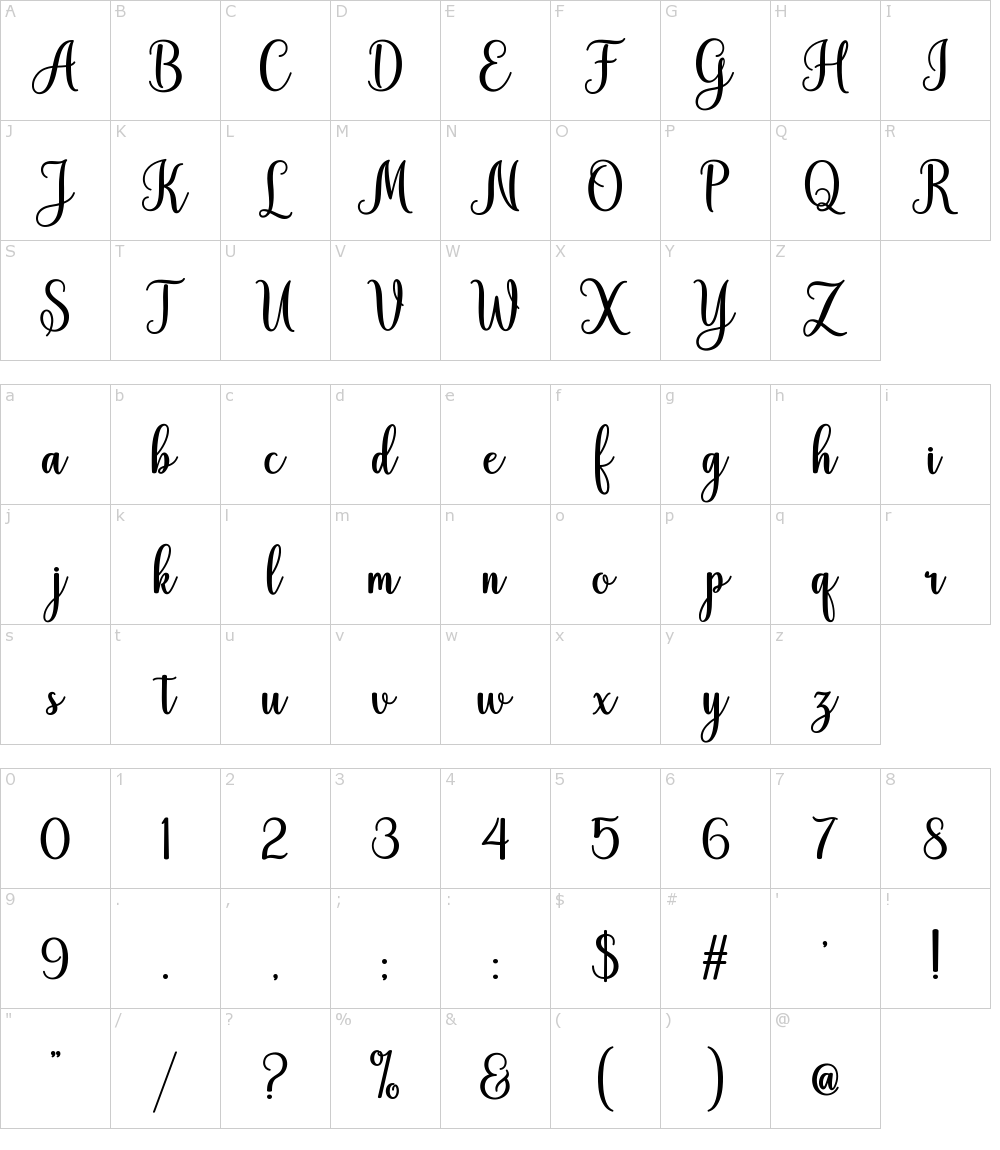
Hiyida script demo file format: Hiyida script is modern script font where every single letter has been carefully crafted to make your text look beautiful. Microsoft word, corel draw, adobe photoshop. This is a beautiful script with a new lovely stylish, a perfection style of the letters you want to use, modern handwriting with many alternatives. With modern script style this font will perfect for many different project, example: Download hiyida script demotruetype font. Weddings, invitations, greeting cards, posters, name card, quotes, blog header, branding, logo. Connect with them on dribbble; Hiyida script font is modern script font, every single letters has been carefully crafted to make your text looks beautiful. Copyright (c) 2016 by creative.lafont. But any donation are very appreciated. With modern script style this font will perfect for many different project, example: Dear visitor, you went to the site as unregistered user.
Date of font being added: Hiyida script demo file format: Hiyida script is modern script font, every single letters has been carefully crafted to make your text looks beautiful.
With modern script style this font will perfect for many different project, example: This is a beautiful script with a new lovely stylish, a perfection style of the letters introducing hiyida, font created by creative.lafont. Fontbundles.net 407 views, 14 downloads share share share. Please, talk with the author for commercial use or for any support. But any donation are very appreciated. This is a beautiful script with a new lovely stylish, a perfection style of the letters you want to use, modern handwriting. Windows, mac, linux for programs: Hiyida script is a script type font that can be used on any device such as pc, mac, linux, ios and android. Enter some text in the box below, then click the preview button. Hiyida script is modern script font where every single letter has been carefully crafted to make your text look beautiful. The global community for designers and creative professionals. Hiyida font is modern script font, every single letters has been carefully crafted to make your text. With modern script style this font will hiyida script font.
This is a beautiful script with a new lovely stylish, a perfection style of the letters you want to use, modern handwriting. Copyright (c) 2016 by creative.lafont.
Hiyida free script font designed by julian smith. Hiyida font is modern script font, every single letters has been carefully crafted to make your text.
Hiyida script is modern script font, every single letters has been carefully crafted to make your text looks beautiful. Windows, mac, linux for programs:
The author works at company hiyida script demo is free for personal use only. With modern script style this font will perfect for many different project, example:
This is a beautiful script with a new lovely stylish, a perfection style of the letters you want to use, modern handwriting with many alternatives. This is a beautiful script with a new lovely stylish, a perfection style of the letters introducing hiyida, font created by creative.lafont.
Hiyida font is modern script font, every single letters has been carefully crafted to make your text. Windows, mac, linux for programs:
Hiyida font is modern script font, every single letters has been carefully crafted to make your text. Weddings, invitations, greeting cards, posters, name card, quotes, blog header, branding, logo.